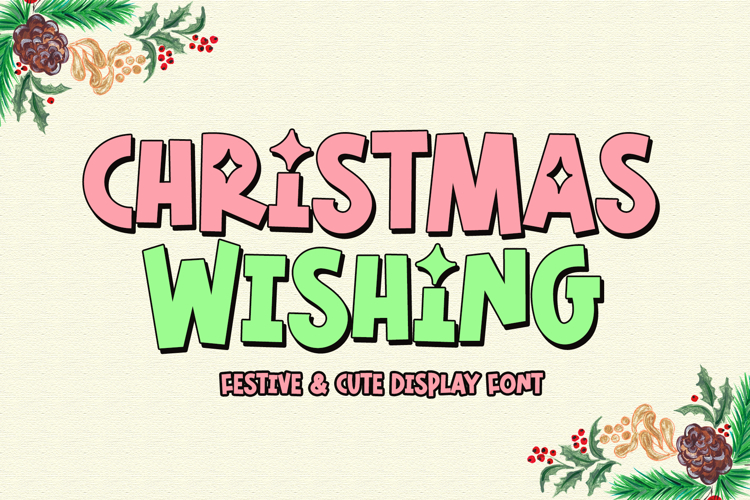
Christmas Wishing is all caps handwritten font with cute and bouncy touch. This font will enhance fun and cheerful vibes into the design work.
Christmas Wishing is pretty font for wide ranges of design with cute theme, such as t-shirt, display, crafting, sticker, Christmas, holiday, winter, quotes, tumbler, sublimation, and many more.
- All Caps
- Numeral and Punctuation
- Most Multilingual Accent